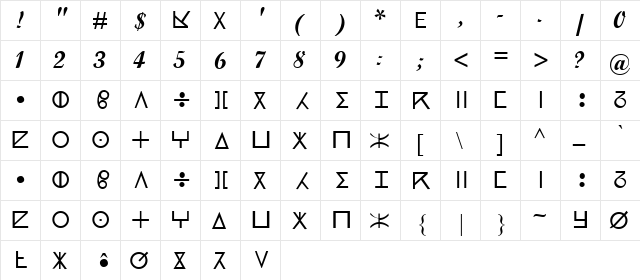
Tifina Normal Font Preview
Tifina Normal
Design Context for Tifina Typeface
Tifina offers clean, dependable letterforms without strong stylistic allegiance, making it a practical choice for designers who need flexibility.